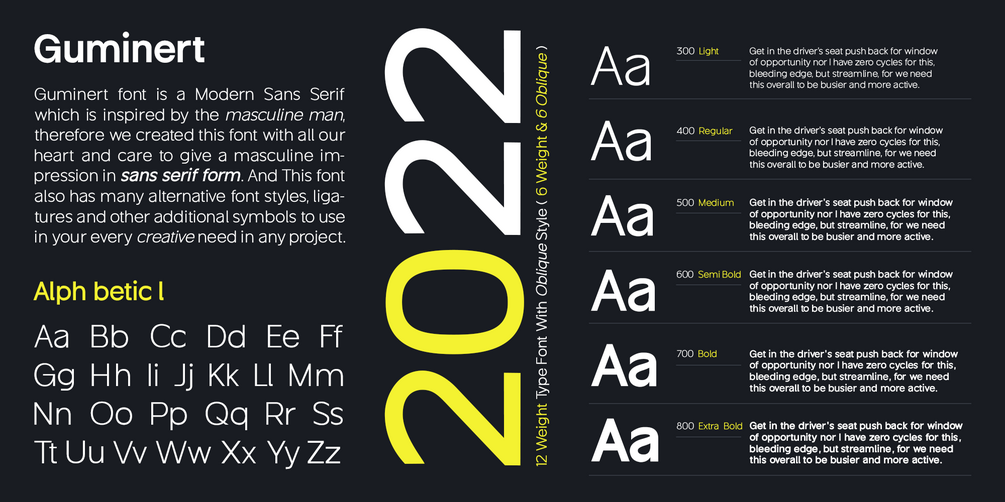
Guminert
The Guminert font is a modern sans serif that is inspired by the masculine man; therefore, we created this font with all our heart and care to give a masculine impression in sans serif form. And this font also has many alternative font styles, ligatures, and other additional symbols to use for your every creative need in any project.
- Details Font : Sans Serif
- Style : 12 Weight (Light - Extra Bold)